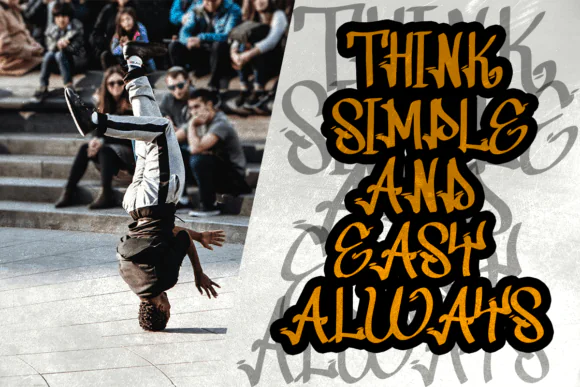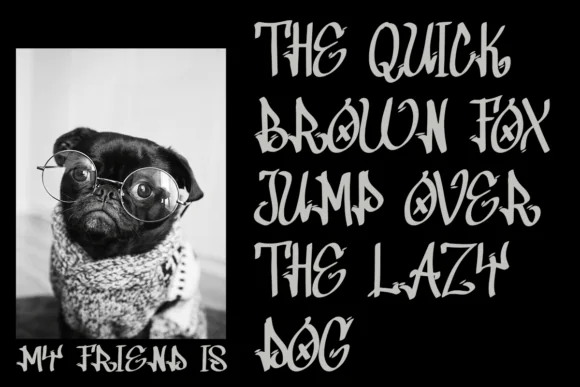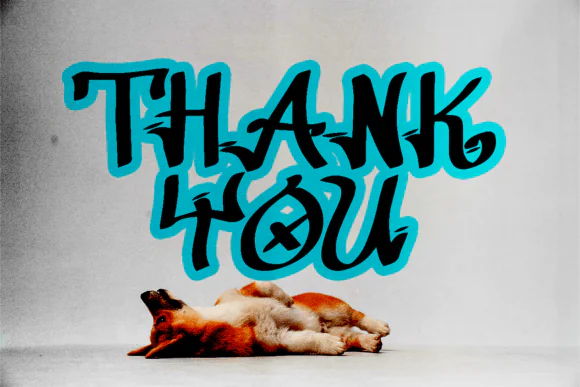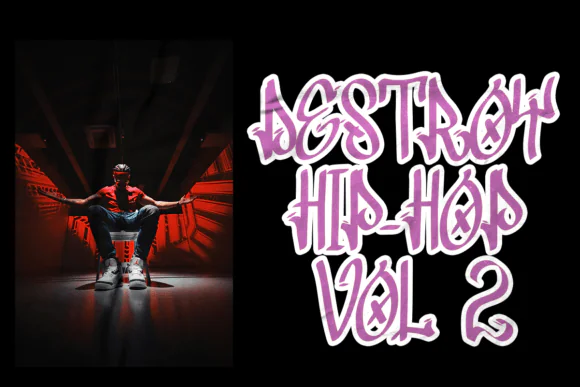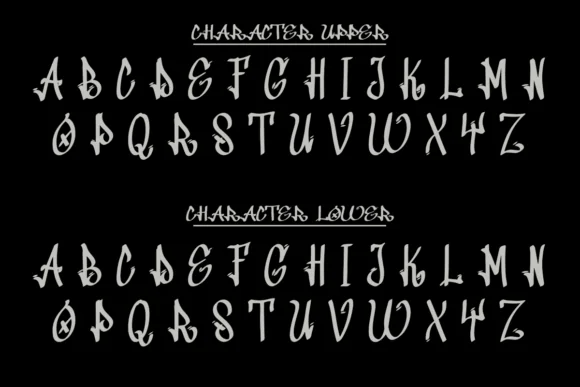
Grafitti New Year Font | Festive Urban Graffiti Typeface for New Year Party Invitations, Event Posters, Social Media Graphics, Flyers & Bold Street Art Designs
Celebrate the new year with bold urban energy using Grafitti New Year Font, a vibrant graffiti-style typeface designed for festive, expressive, and unconventional design projects. Inspired by tag graffiti, street art, dynamic strokes, splatters, and rebellious lettering, this font brings a raw street-style attitude to New Year-themed visuals.
Grafitti New Year is perfect for designers, event organizers, party brands, content creators, and businesses that want to create eye-catching holiday graphics with a modern urban twist. Its jagged edges and energetic style make every word feel active, bold, and full of celebration.
Use this font for New Year party invitations, countdown posters, event flyers, nightclub promotions, social media graphics, banners, digital ads, apparel designs, stickers, greeting cards, and bold typography artwork. It is especially useful when you want your design to break away from traditional elegant New Year styles and create something louder, younger, and more expressive.
• New Year party invitations
• Countdown event posters
• Nightclub flyers
• New Year banners
• Streetwear designs
• T-shirt and hoodie graphics
• Stickers and decals
• Greeting cards
• Event branding
• Music event posters
• Urban-style promotions
• Festive digital ads
• Bold typography artwork
• Creative holiday designs